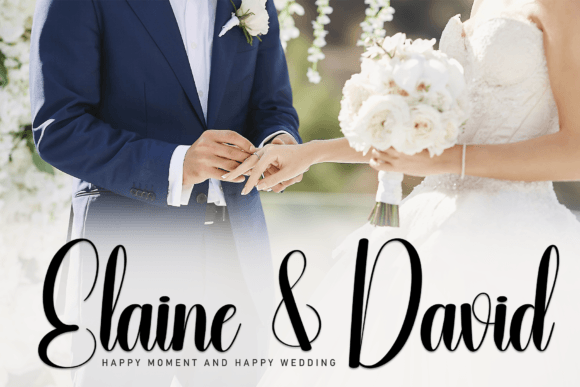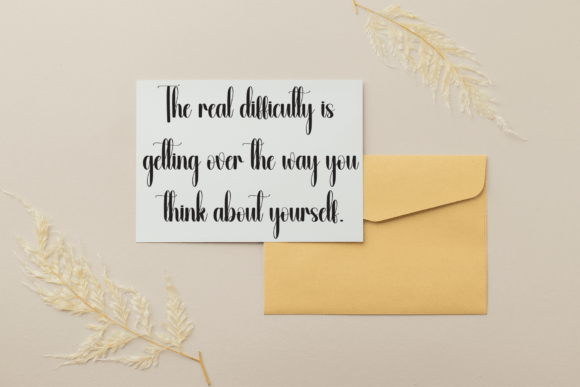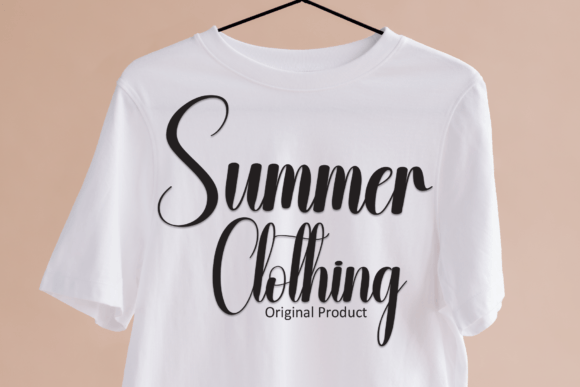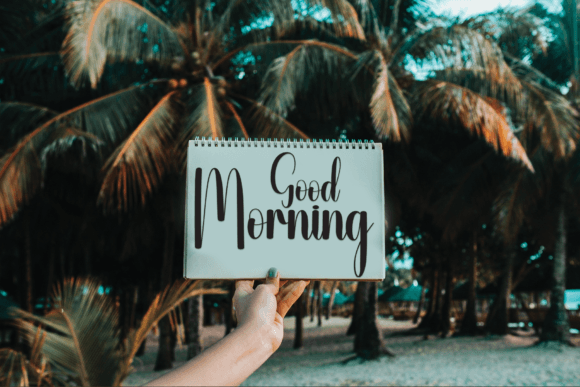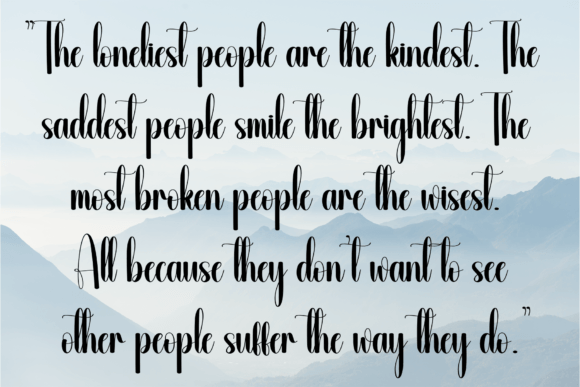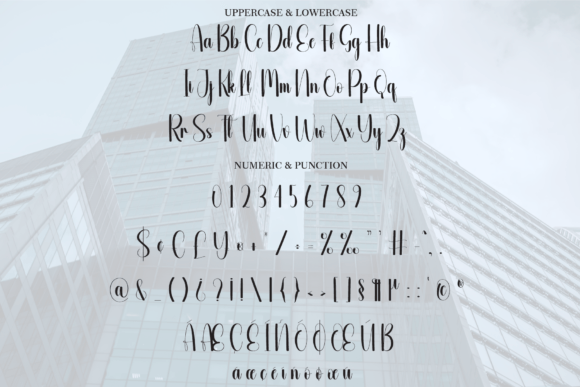
Introducing Building Font: The Sweet and Friendly Handwritten Font for Your Creative Projects
Are you a designer or crafter looking for a font that can add a personal touch to your work? Look no further than Building Font, a sweet and friendly handwritten font that’s perfect for a variety of creative projects. In this article, we’ll take a closer look at Building Font, its features, and how you can use it to elevate your designs.
What is Building Font?
Building Font is a beautifully crafted handwritten font that’s fresh, casual, and full of character. Its sweet and friendly tone makes it ideal for writing wedding invitations, cards, or any other design that might need a lovely touch. Whether you’re a professional designer or a crafty DIY enthusiast, Building Font is sure to become a favorite in your font collection.
Key Features of Building Font
So, what makes Building Font so special? Here are some of its key features:
- Handwritten style: Building Font has a genuine handwritten look that’s perfect for adding a personal touch to your designs.
- Fresh and casual tone: This font has a lighthearted and airy feel that’s ideal for creating designs that are friendly and approachable.
- Highly legible: Building Font is easy to read, even at small sizes, making it perfect for body text and captions.
- Versatile: This font can be used for a wide range of design projects, from wedding invitations and cards to posters, flyers, and more.
Using Building Font in Your Designs
Building Font is incredibly easy to use, and its versatility makes it suitable for a wide range of design projects. Here are some ideas to get you started:
- Wedding invitations and cards: Building Font is perfect for creating beautiful and elegant wedding invitations, save-the-date cards, and thank-you notes.
- DIY crafts: Add a personal touch to your DIY crafts, such as scrapbook pages, journal entries, and handmade cards.
- Posters and flyers: Use Building Font to create eye-catching posters and flyers for events, promotions, and announcements.
- Social media graphics: Add a friendly and approachable tone to your social media graphics, such as Facebook posts, Instagram stories, and Twitter headers.
Tips for Getting the Most Out of Building Font
Here are some tips for getting the most out of Building Font:
- Experiment with font sizes: Building Font looks great at a variety of font sizes, so don’t be afraid to experiment to find the perfect size for your design.
- Pair with other fonts: Building Font pairs well with other fonts, so try combining it with a bold font for headings and a clean font for body text.
- Use it consistently: Use Building Font consistently throughout your design to create a cohesive and harmonious look.
In conclusion, Building Font is a sweet and friendly handwritten font that’s perfect for designers and crafters looking to add a personal touch to their work. Its fresh and casual tone, high legibility, and versatility make it suitable for a wide range of design projects. Whether you’re creating wedding invitations, cards, posters, or social media graphics, Building Font is sure to become a favorite in your font collection.